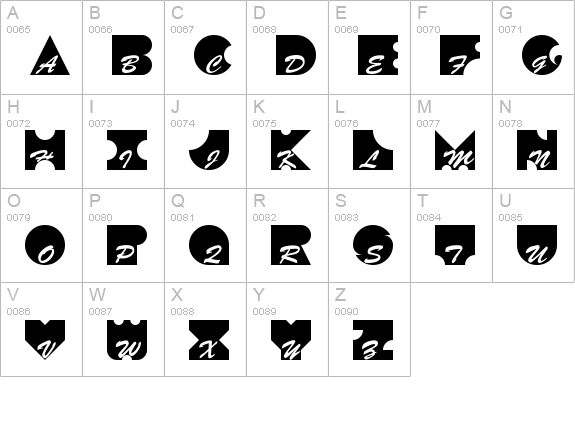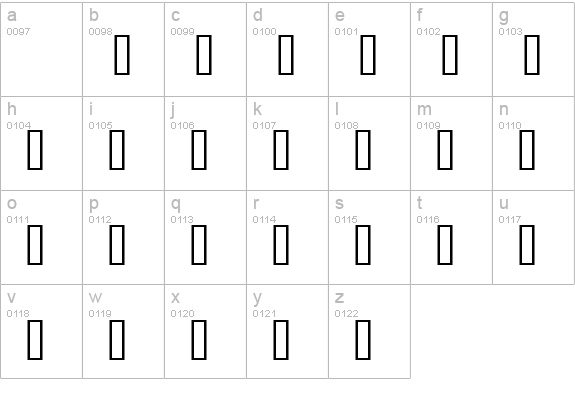
Kontrast Font Details
Introducing Kontrast font, a modern and sleek typeface that effortlessly combines elegance with a touch of edginess. Its sharp lines and distinct contrast between thick and thin strokes make it a perfect choice for a wide range of design projects. Whether you're working on branding, editorial design, or web graphics, Kontrast font will add a sophisticated and contemporary flair to your work. The best part? Kontrast font is completely free to download at FontsMarket.com. Now you can elevate your designs without breaking the bank. Don't miss out on this amazing opportunity to enhance your creativity with Kontrast font. Download it today and start creating stunning visuals that stand out from the crowd.